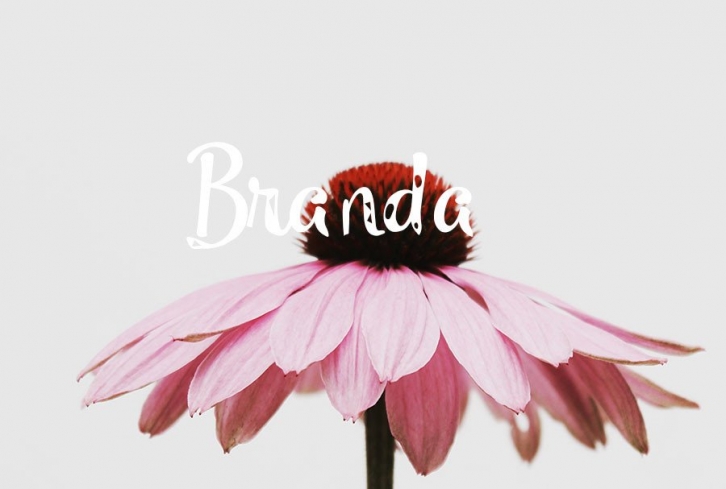
Branda is a lovely and timeless handwritten font. It is the best choice for creating eye catching logos, branding and quotes. Every letter has a unique and beautiful touch, which will make your design come alive!